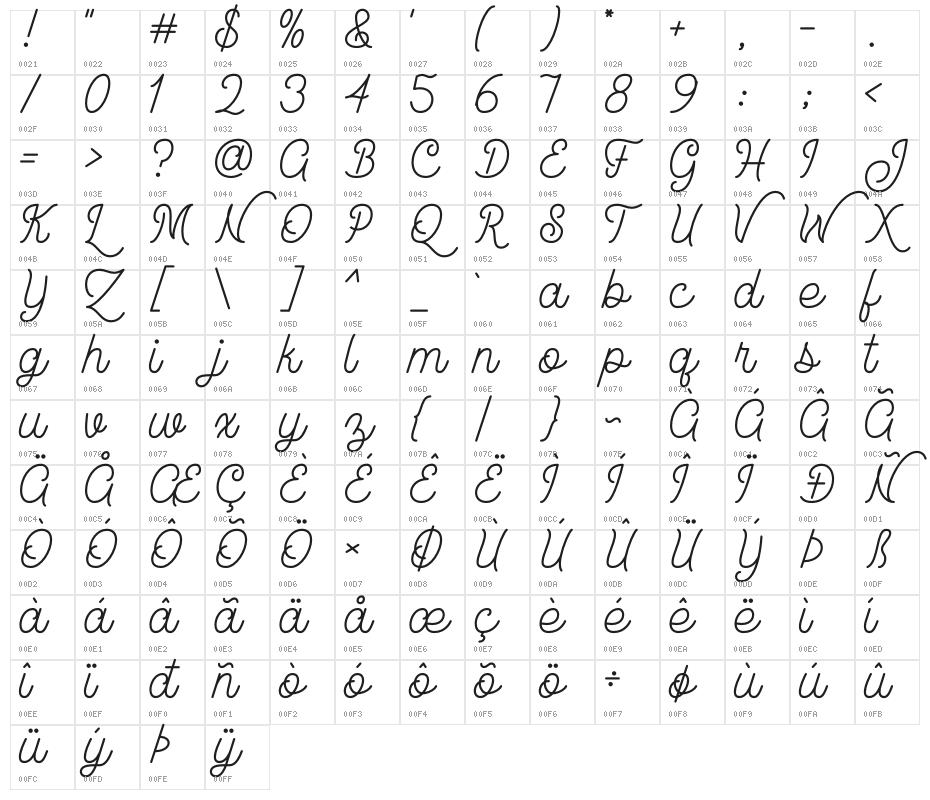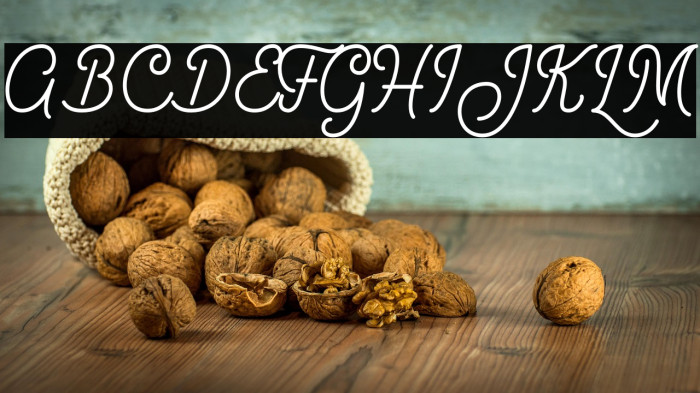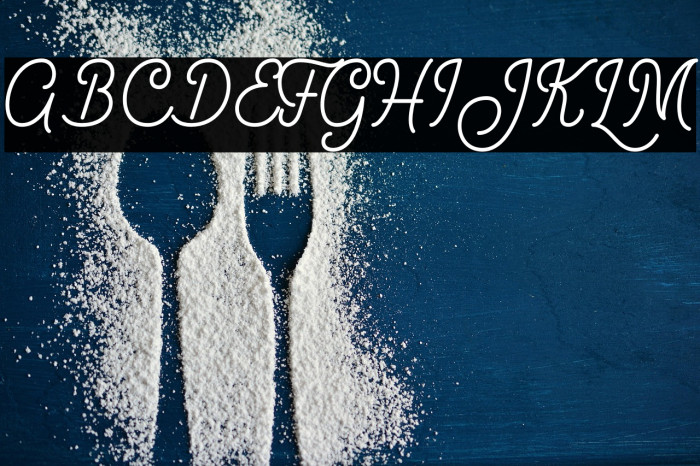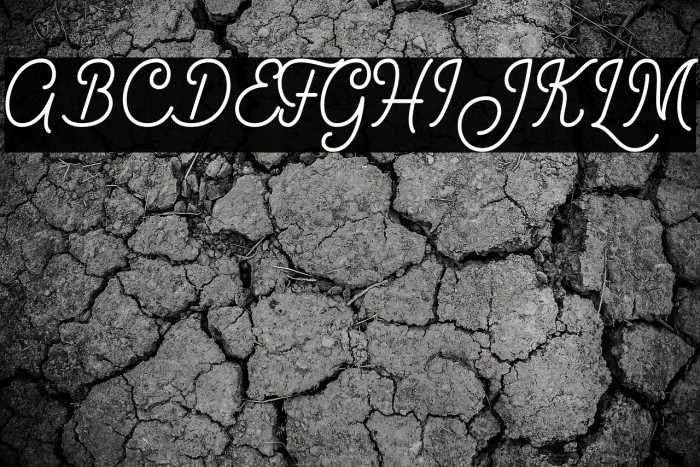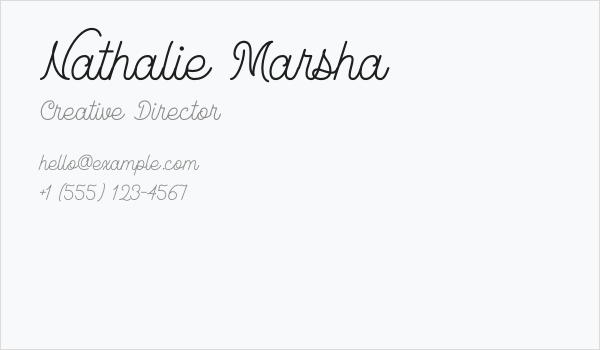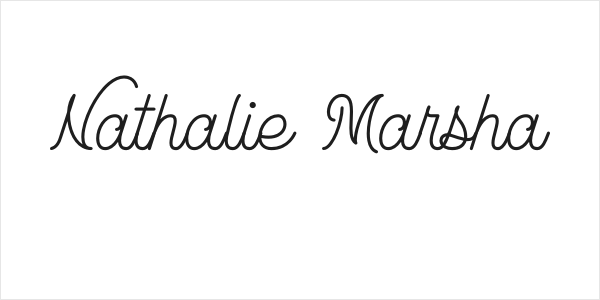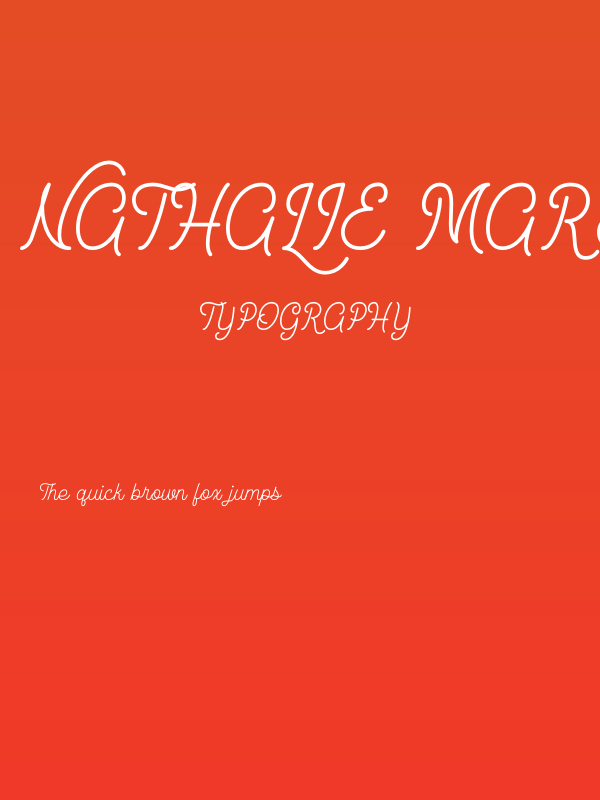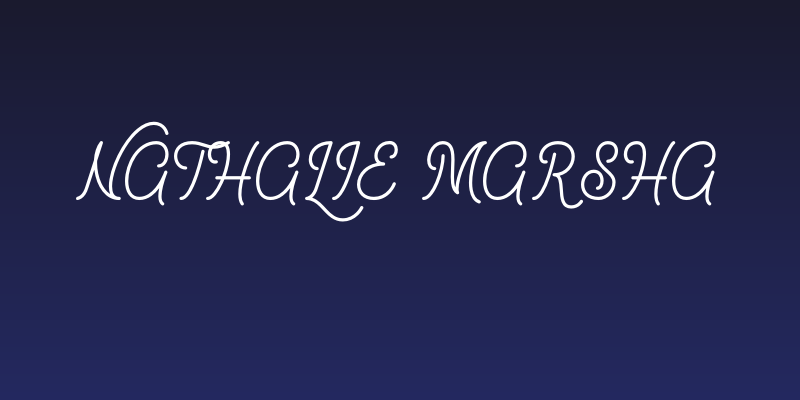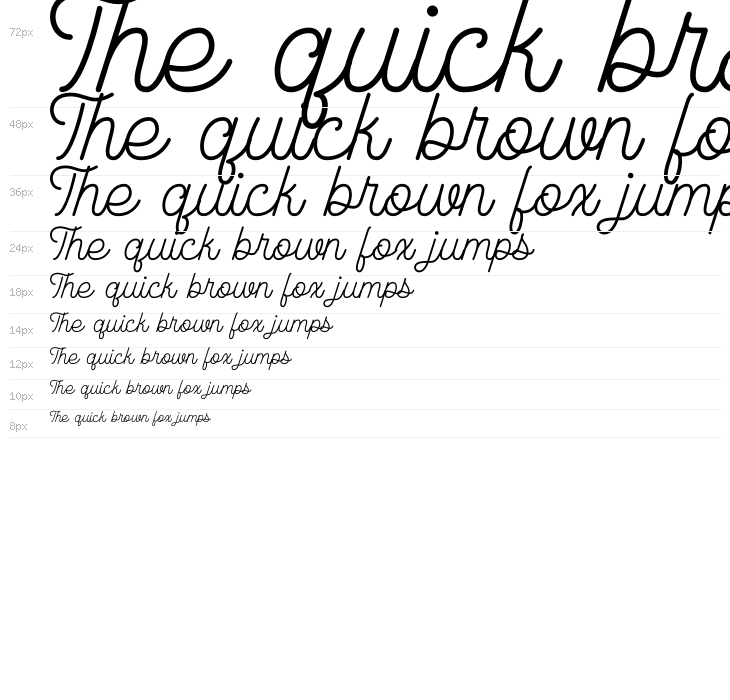
Nathalie Marsha Font
Nathalie Marsha Description
This elegant script font features a flowing, cursive style with smooth, continuous strokes that create a sense of fluidity and grace. The uppercase letters are ornate and slightly larger, providing a striking contrast to the more understated lowercase characters. The numerals and special characters maintain the same flowing aesthetic, making the font versatile for various uses. Its design is reminiscent of traditional calligraphy, yet it retains a modern touch, making it suitable for both classic and contemporary projects.